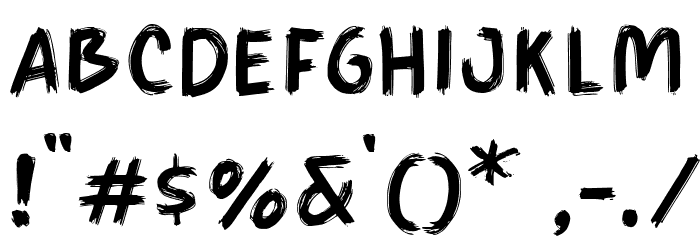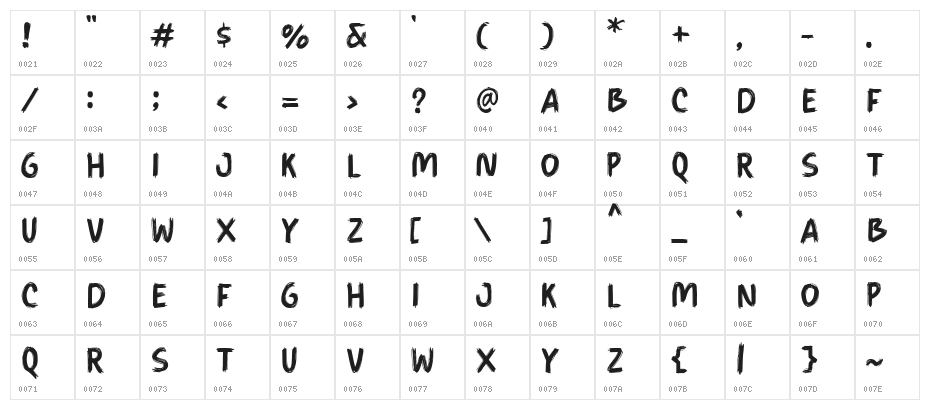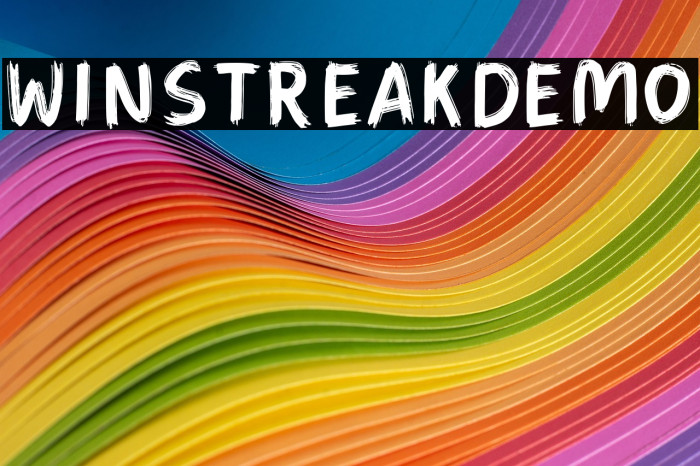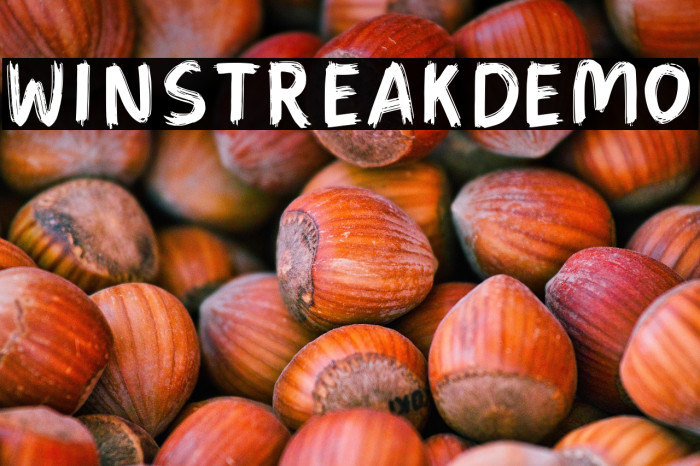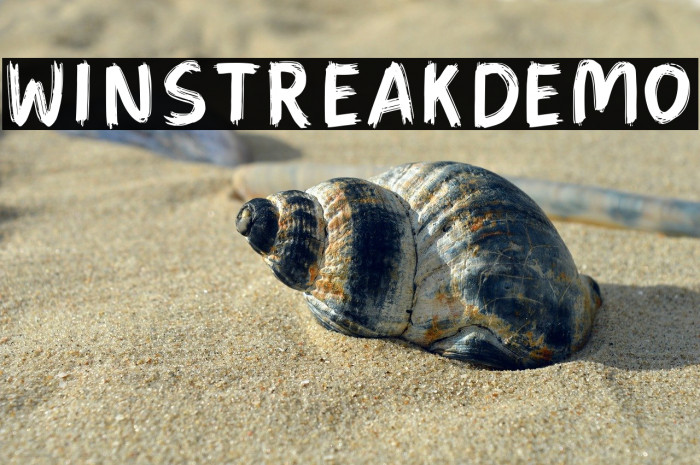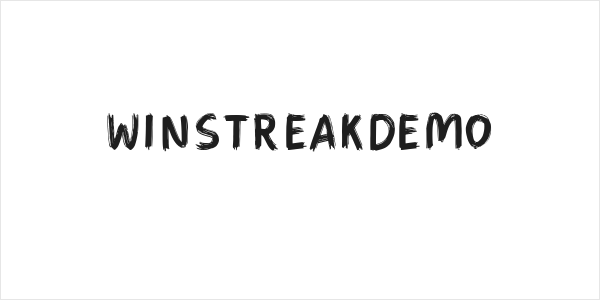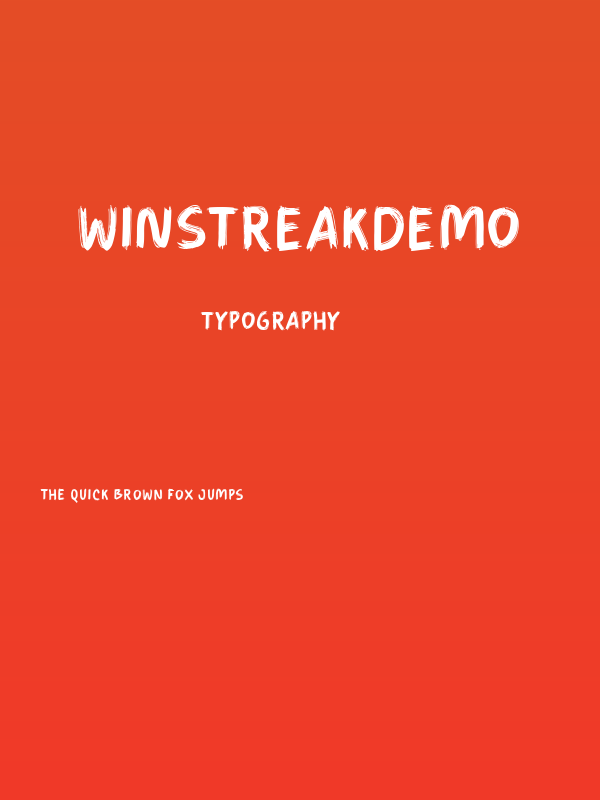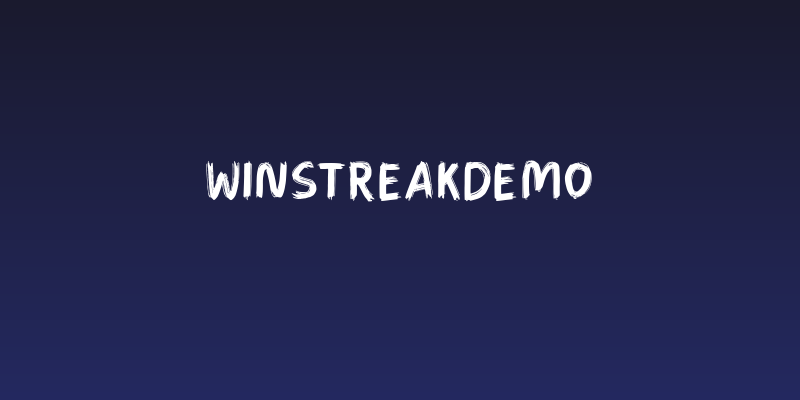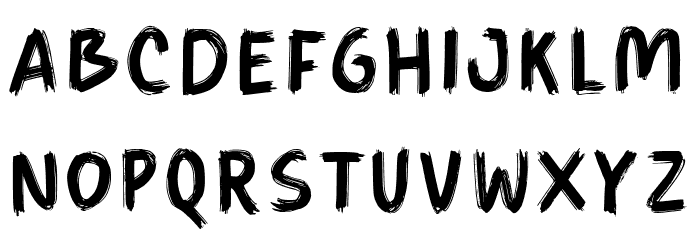
WinstreakDEMO Font
WinstreakDEMO Description
This font features a bold, brushstroke style that exudes energy and dynamism. The characters are crafted with a rough, hand-painted appearance, giving them a raw and artistic feel. The strokes are uneven, with varying thicknesses that add to the font's expressive nature. This style is reminiscent of street art or graffiti, making it ideal for projects that require a bold and edgy aesthetic. The uppercase and lowercase letters maintain a consistent style, with the uppercase being slightly more pronounced. The numbers and special characters follow the same artistic brushstroke theme, ensuring a cohesive look across all elements.
| Proposed Projects | Ideal for posters, album covers, branding for creative industries, and any project needing a bold, artistic touch. |